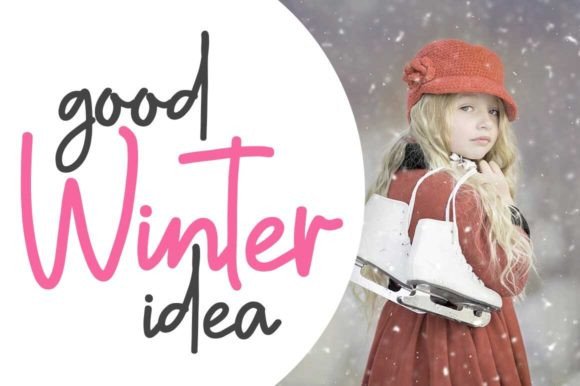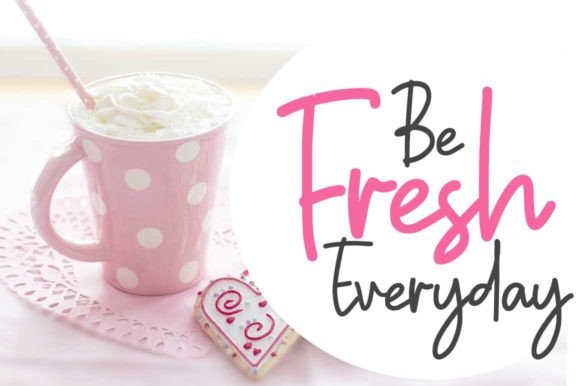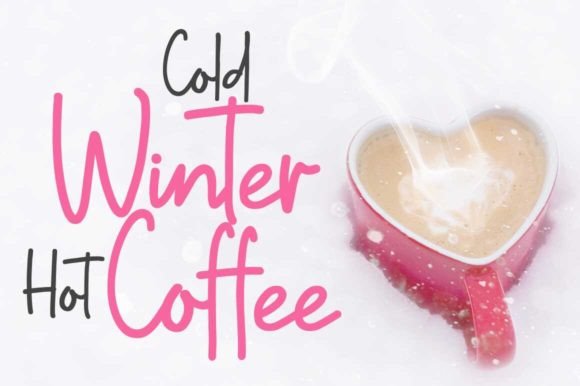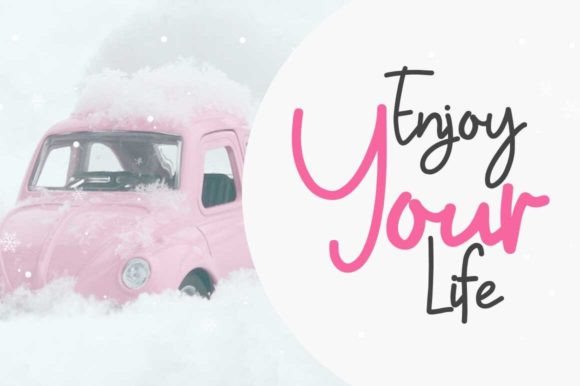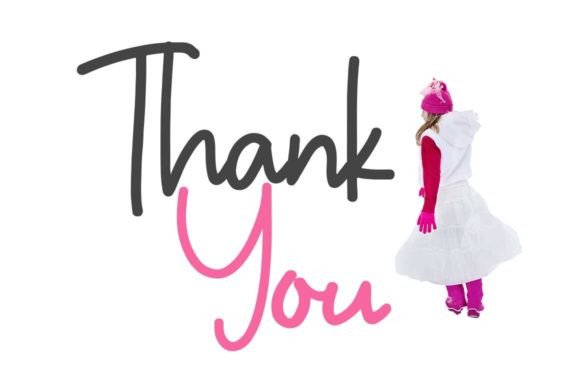
The Perfect Touch of Elegance: Billie Andrea Font
As creatives, we’ve all been there – staring at a blank page, trying to bring a vision to life. The perfect font can be the spark that sets the entire design ablaze. And, if you’re anything like me, you’re always on the hunt for that special something that elevates your work from good to great. Enter Billie Andrea Font, the newest signature font designed to add a touch of sophistication to any project.
Billed as the ultimate all-rounder, Billie Andrea Font is perfect for branding, business cards, quotes, posters, stickers, blogs, logos, weddings, birth announcements, photo overlays, printed goods, bags, t-shirts and more. With its unique ligatures and elegant flair, this font is a game-changer for designers looking to take their work to the next level.
- Font Family: Billie Andrea is a script font designed to mimic handwritten text.
- Unique Characteristics: Features a flowing, cursive script with subtle flair and elegance, perfect for adding a touch of sophistication to designs.
Billie Andrea Font Review
Overall, I think the Billie Andrea font is a lovely addition to any design project. ✨ The script style gives it a unique, handwritten feel that can add a touch of elegance to any text.
- ✨ Beautiful script style: The Billie Andrea font has a beautiful, flowing script style that can add a touch of sophistication to any text.
- ✨ Versatile: The font is versatile and can be used for a wide range of applications, from invitations to branding.
- ✨ Easy to read: The font is easy to read, even in smaller sizes, making it a great choice for body text.
- ⚠️ Limited character set: The font only includes uppercase and lowercase letters, as well as numbers and some punctuation.
- ⚠️ Not suitable for large blocks of text: The font is best used for short phrases or titles, as it can be difficult to read in large blocks of text.
Overall, I think the Billie Andrea font is a great choice for designers who want to add a touch of elegance and sophistication to their projects. While it has some limitations, it’s a beautiful font that can add a unique touch to any design.
Use the Billie Andrea Font for:
- Brand logos and marketing materials
- Book covers and publishing materials
Experiment with different font sizes, styles, and combinations to create visually appealing designs.
The Billie Andrea Font is ideal for:
- Adding a touch of elegance and sophistication to your designs
- Creating a vintage or retro aesthetic
- Enhancing the visual appeal of your text-based content
Alternatives to Billie Andrea Font for Designers
Lato is a modern sans-serif font designed by Łukasz Dziedzic. It is a versatile font suitable for various design projects, including logos, headings, and body text. Lato is a popular alternative to Billie Andrea Font due to its clean and elegant design.
Comparison: While Billie Andrea Font has a more rounded and cursive feel, Lato is a more geometric and modern font. Lato is a better choice for projects that require a clean and minimalist aesthetic.
Montserrat is a sans-serif font designed by Julieta Ulanovsky. It is a geometric font inspired by the urban environment of Montserrat, a mountain range in Argentina. Montserrat is a great alternative to Billie Andrea Font for projects that require a bold and modern look.
Comparison: While Billie Andrea Font has a more elegant and refined feel, Montserrat is a more edgy and modern font. Montserrat is a better choice for projects that require a bold and attention-grabbing aesthetic.